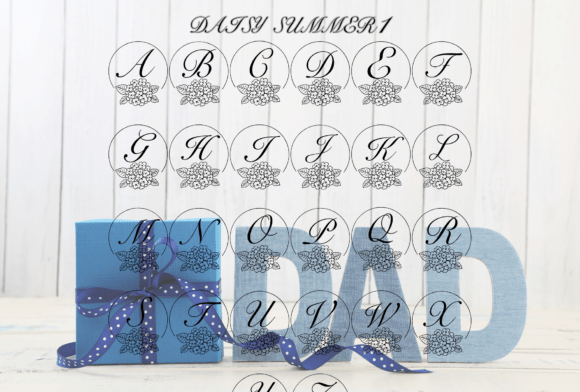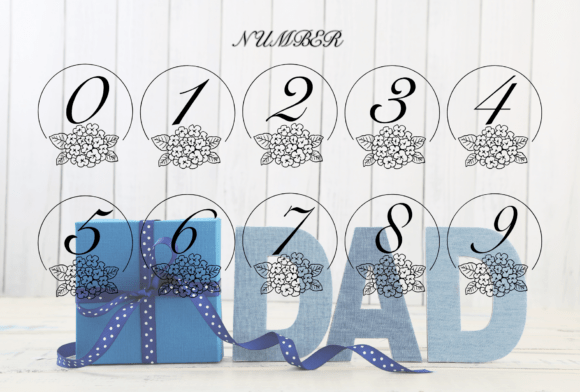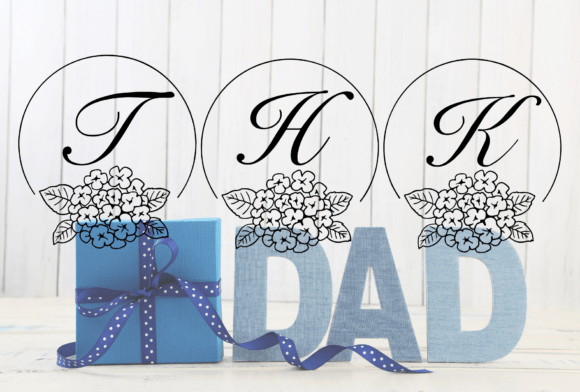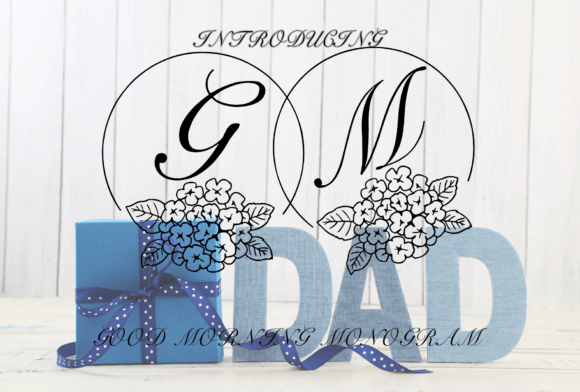
Elevate Your Designs with the Exquisite Good Morning Font: A Hydrangea Floral Monogram Alphabet & Numbers Set
Are you a designer or crafter looking to add a touch of elegance to your creative projects? Look no further! The Good Morning Font, a stunning Hydrangea Floral Monogram Alphabet & Numbers set, is here to transform your designs into timeless masterpieces. This beautiful collection features a classic script font enclosed in a delicate circular frame, adorned with a hand-drawn hydrangea flower bouquet, making it perfect for a variety of occasions.
A Perfect Blend of Classic and Elegant
The Good Morning Font is a masterful blend of classic and elegant design elements. The script font, enclosed in a delicate circular frame, exudes sophistication and refinement. The addition of a hand-drawn hydrangea flower bouquet adds a touch of whimsy and romance, making this font set ideal for creating personalized gifts, home decor, and custom apparel.
With the Good Morning Font, the creative possibilities are endless. Whether you’re crafting for Mother’s Day, Father’s Day, weddings, or anniversaries, this font set is sure to impress. Imagine creating personalized gifts, such as monogrammed tote bags, customized jewelry, or bespoke home decor items, that showcase your loved ones’ special names or initials in a beautiful, elegant script.
Key Features of the Good Morning Font
- Classic Script Font: A beautiful, timeless script font that adds a touch of elegance to any design.
- Delicate Circular Frame: A delicate circular frame that adds a touch of sophistication to the font.
- Hand-Drawn Hydrangea Flower Bouquet: A beautiful, hand-drawn hydrangea flower bouquet that adds a touch of whimsy and romance.
- Monogram Alphabet & Numbers: A comprehensive set of monogram alphabet and numbers that can be used to create personalized designs.
Why Choose the Good Morning Font?
So, why choose the Good Morning Font for your creative projects? Here are just a few reasons:
- Unique and Exclusive: The Good Morning Font is a unique and exclusive design that will set your projects apart from the rest.
- Elegant and Sophisticated: The font set exudes elegance and sophistication, making it perfect for special occasions.
- Easy to Use: The font set is easy to use and can be incorporated into a variety of design projects.
- High-Quality Design: The font set is designed with high-quality graphics, ensuring that your projects look professional and polished.
Tips for Using the Good Morning Font
Here are a few tips for using the Good Morning Font in your creative projects:
- Pair with Other Elegant Fonts: Pair the Good Morning Font with other elegant fonts to create a cohesive and sophisticated design.
- Add a Personal Touch: Add a personal touch to your projects by incorporating the recipient’s name or special message.
| Font Name | Good Morning Font |
| Author | Candygirl Art |
In conclusion, the Good Morning Font is a stunning Hydrangea Floral Monogram Alphabet & Numbers set that is sure to elevate your creative projects to the next level. With its classic script font, delicate circular frame, and hand-drawn hydrangea flower bouquet, this font set is perfect for creating personalized gifts, home decor, and custom apparel. Whether you’re a designer or crafter, this font set is a must-have in your collection.